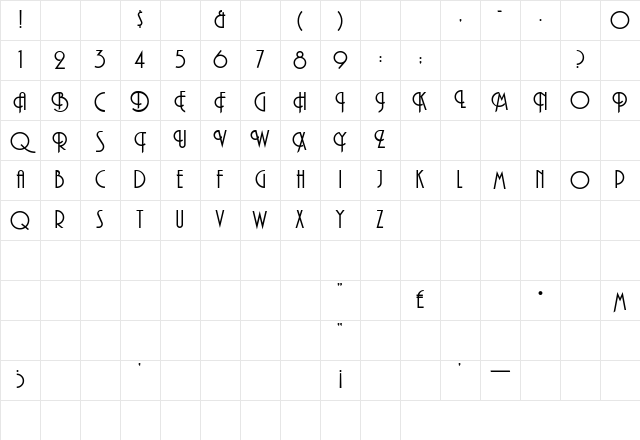
AndesitePlain Regular
Design Context for AndesitePlain
AndesitePlain is a composed and adaptable typeface that performs quietly and consistently across a wide range of design contexts.